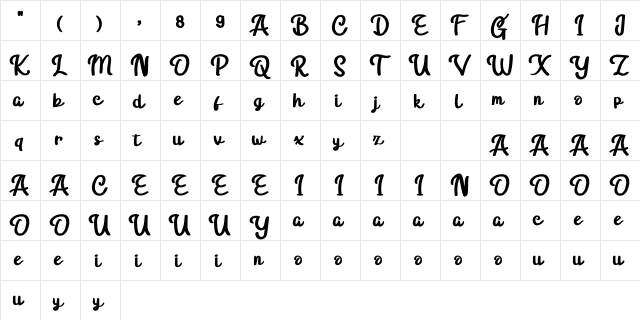
Newgatedemo Regular Font Preview
Newgatedemo Regular
Newgatedemo Regular Font Details
Design Context for Newgatedemo Typeface
Newgatedemo is a composed and adaptable typeface that performs quietly and consistently across a wide range of design contexts.